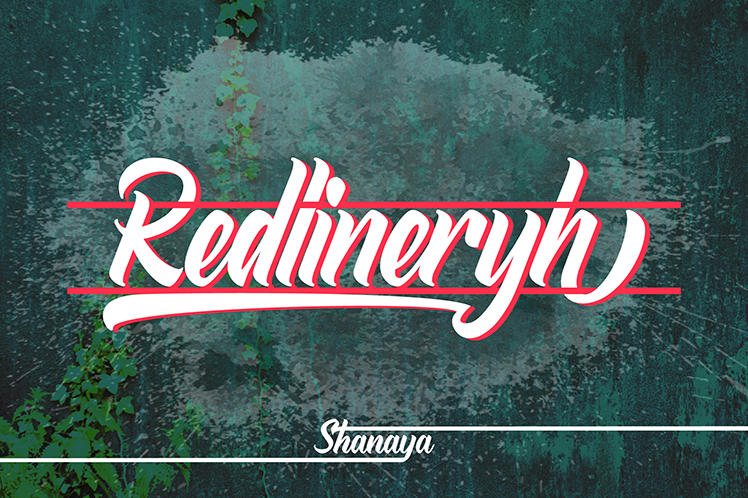
if you want to send a donation, please send it to: https://paypal.me/wahysapt If you want to buy this item, please visit: https://fontbundles.net/shanaya Hi .... let me introduce the Redlineryh, This font was created to help you design a brand of yours own or your client, and you can also use it for designing all of the graphic stuff such as badges, signs, packaging, headlines, T-shirts / apparels, Posters, etc.The Redlinery was designed for personal characters such as strong, confidence, dynamic, readable, etc. Redlineryh.otf Redlineryh.ttf Character Map (PUA Encoded) Note: The price of this item includes use in a variety of uses without limits. Support: If you have questions about error issues and interests in adding glyphs to the Redline font, don't hesitate to give me a message .. Thanks for loving our items, Shanaya, |